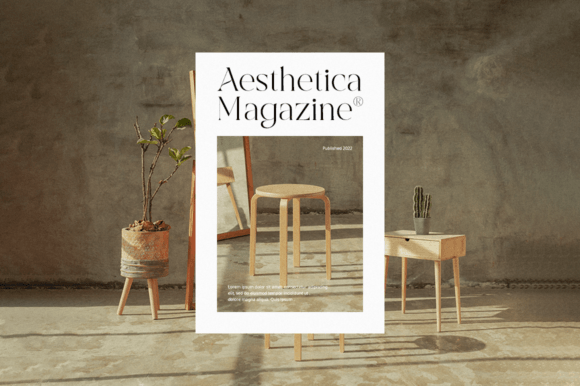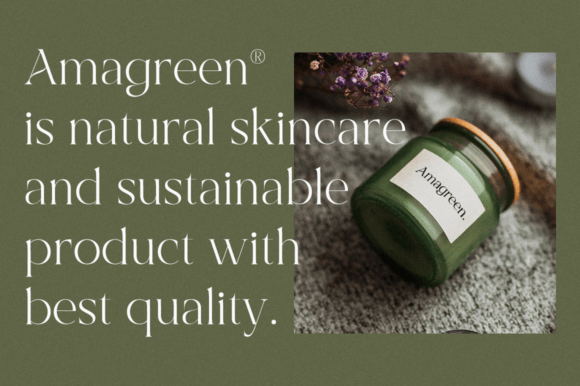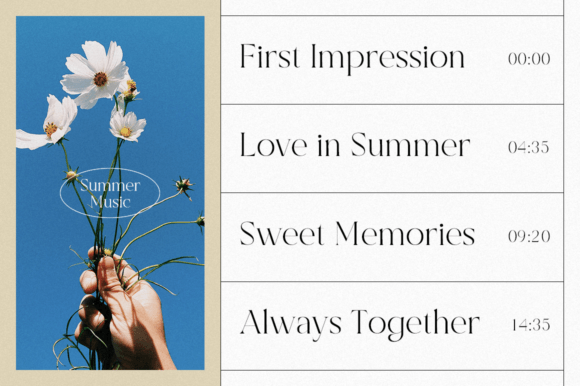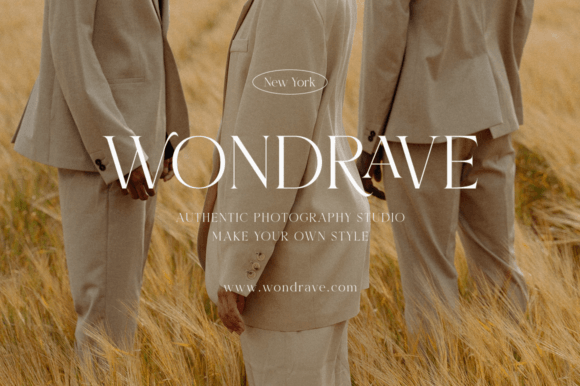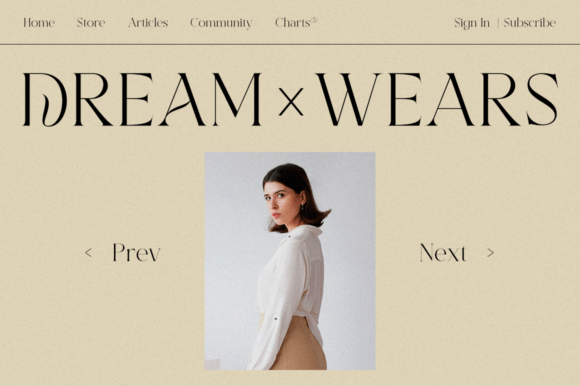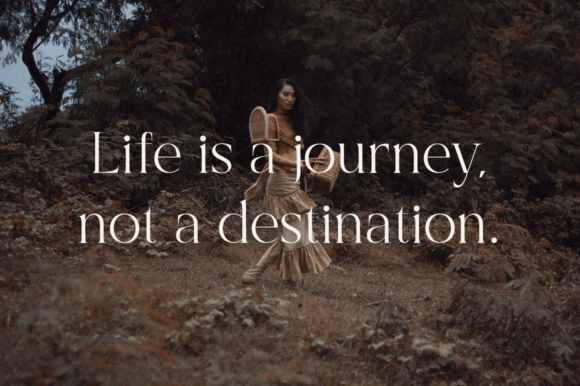
Bercarets Font: Elevate Your Designs with Elegance and Authenticity
In the world of typography, a font can make or break a design. For crafters, designers, and creative enthusiasts, finding the perfect font can be a daunting task. However, if you’re looking for a font that exudes elegance and authenticity, look no further than Bercarets. This stunning serif font is designed to elevate any creation, making it a valuable addition to your library.
The Beauty of Bercarets
Bercarets is a thin, serif font that boasts an elegant and authentic aesthetic. Its slender lines and classic serifs evoke a sense of sophistication, making it perfect for a wide range of design applications. Whether you’re working on a logo, branding materials, or digital content, Bercarets is sure to impress.
One of the standout features of Bercarets is its versatility. This font can be used on various topics and themes, from fashion and beauty to lifestyle and technology. Its neutral yet refined design ensures that it will complement your content without overpowering it.
PUA Encoded for Easy Accessibility
With PUA encoded characters, you can easily access and use the font’s full range of features, including ligatures, stylistic alternates, and more. This level of accessibility makes Bercarets a convenient and practical choice for designers and crafters.
So, what makes Bercarets an excellent choice for designers and crafters? Here are just a few benefits:
- Elegant and authentic design: Bercarets’ sophisticated aesthetic will elevate your designs and give them a professional touch.
- Versatility: Use Bercarets on a wide range of topics and themes, from fashion to technology.
How to Use Bercarets in Your Designs
- Pair Bercarets with other fonts: Combine Bercarets with other fonts to create a unique and visually appealing typography.
- Experiment with font sizes: Bercarets’ thin lines look stunning at larger font sizes, but it can also be used effectively at smaller sizes.
- Play with colors and textures: Add depth and interest to your designs by experimenting with different colors and textures.
In conclusion, Bercarets is an exceptional font that offers elegance, authenticity, and versatility. Its PUA encoded characters make it easily accessible in popular design software, saving you time and effort. Whether you’re a designer, crafter, or creative enthusiast, Bercarets is an excellent addition to your library. Elevate your designs with this stunning serif font and experience the difference it can make.